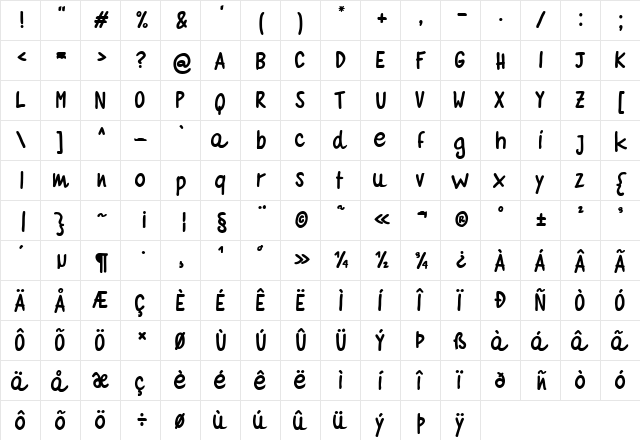
Quaderno Bianco Bold
| Foundry | Monocromo s.n.c. |
| Designer | Katiuscia Mari for Monocromo |
Design Context for Quaderno Bianco Typeface
Quaderno Bianco takes a measured approach to typography — its balanced proportions and neutral character make it a reliable workhorse for both digital and print work. Its bold stroke weight gives it real presence on the page.